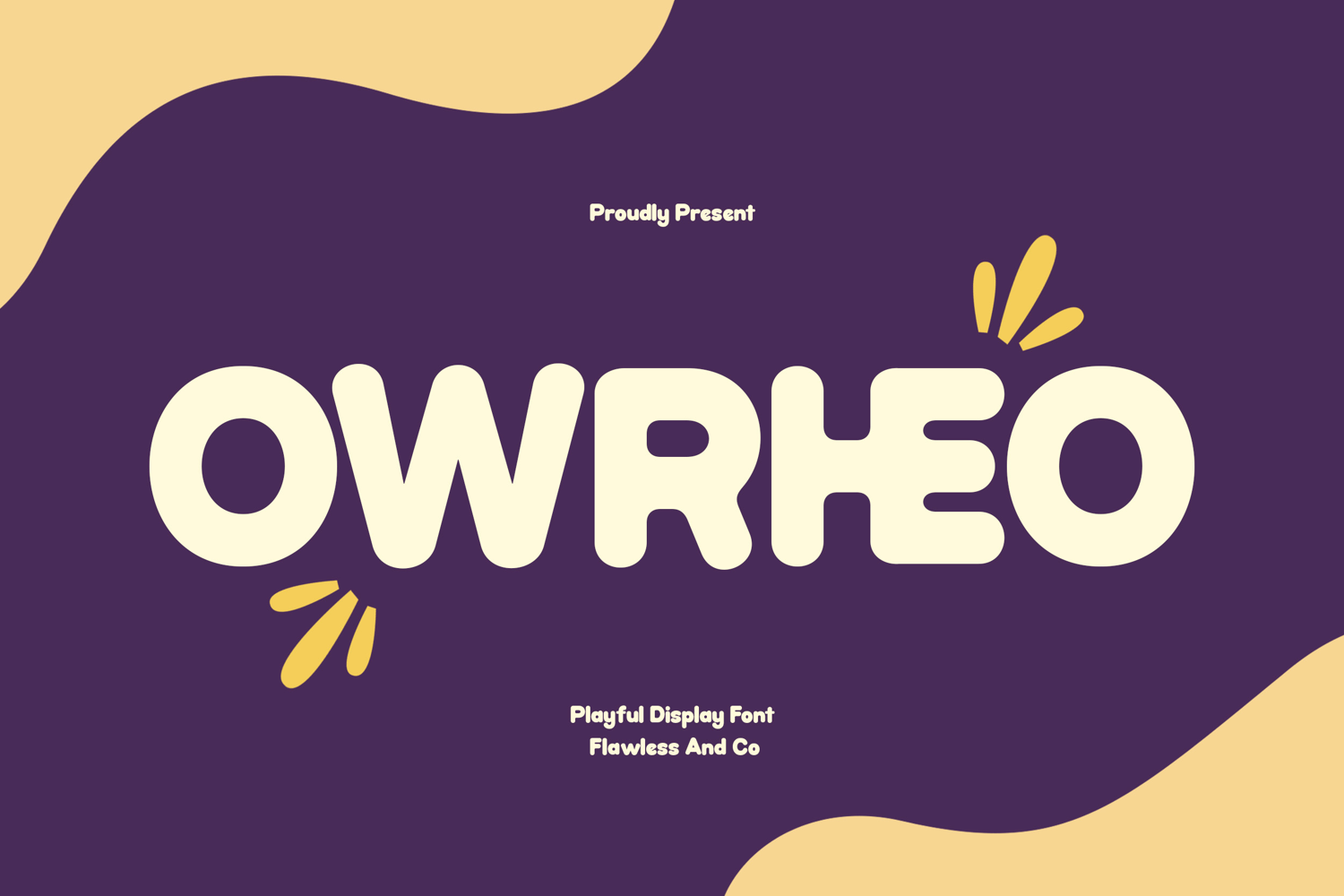
Owrheo
OWRHEO
Owrheo - Playful Display Font
Owrheo is a playful display font that turns every word into a burst of creativity. With its bold curves, quirky letterforms, and cheerful personality, Owrheo is designed to make your typography feel lively, expressive, and impossible to ignore. Every character is crafted with a sense of fun, creating a visual rhythm that instantly brings warmth and excitement to your designs.
Uppercase & Lowercase
Alternates & Ligatures
Numerals & Punctuation
Multilingual Support
Who Should Use Owrheo?
Owrheo is ideal for designers, illustrators, creative studios, content creators, and brands looking for typography that feels joyful, expressive, and full of personality. It's especially perfect for projects that aim to create a friendly, youthful, and memorable first impression.
Suitable For:
Creative branding and logo design
Kids and educational projects
Food and beverage packaging
Toy and children's product branding
Social media graphics and content
Event posters and invitations
Merchandise and apparel design
Fun and playful display typography